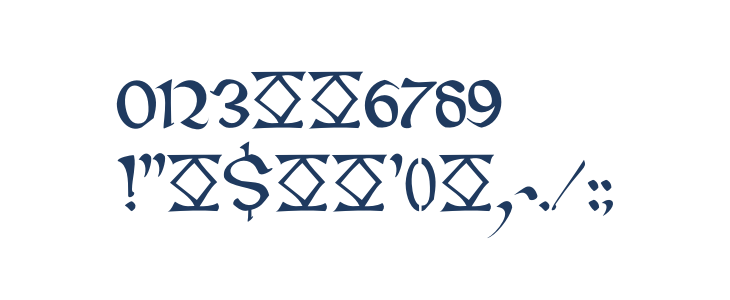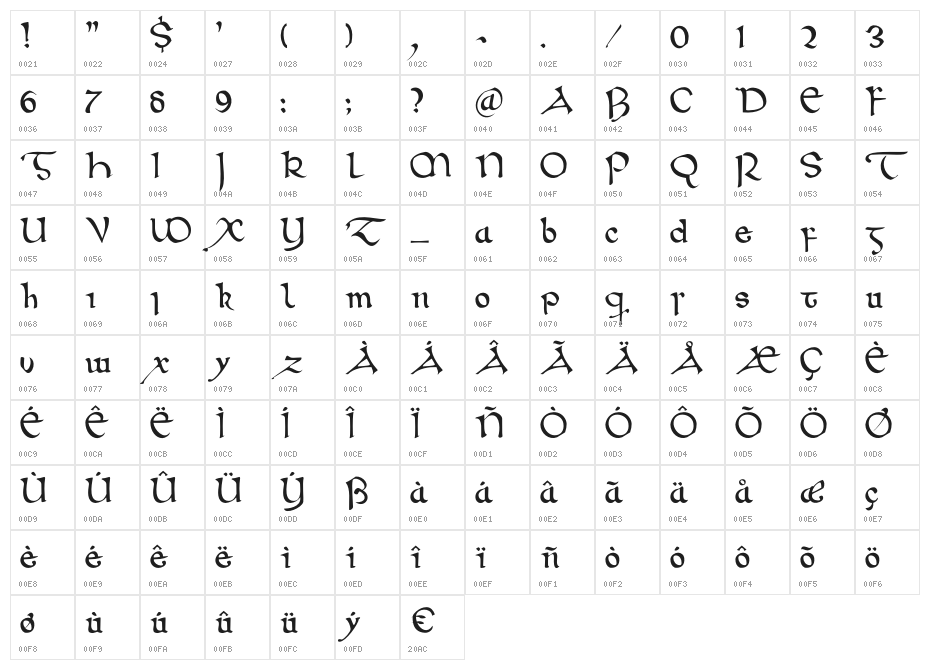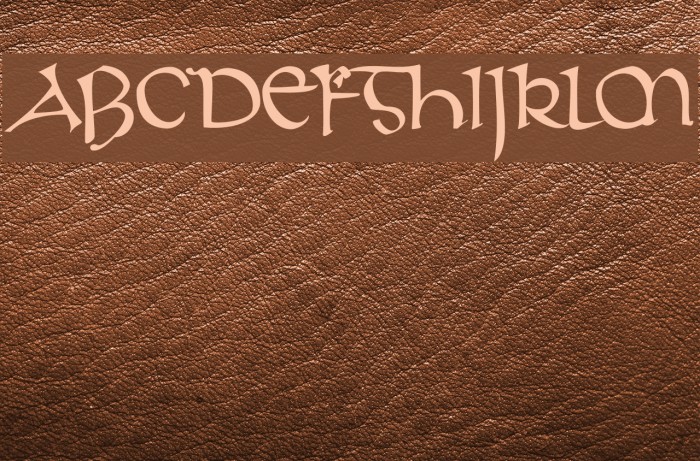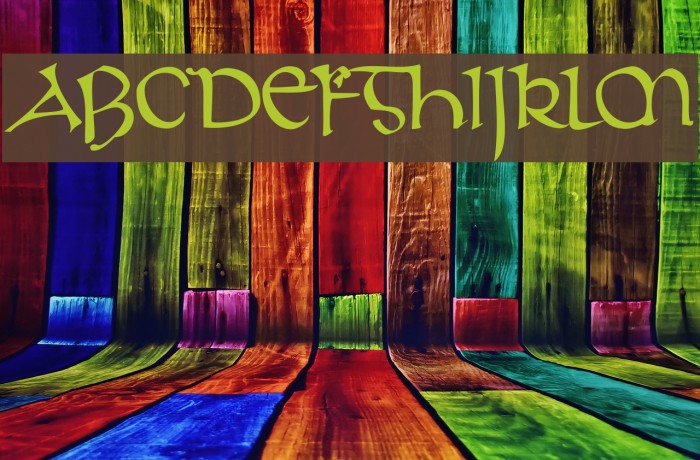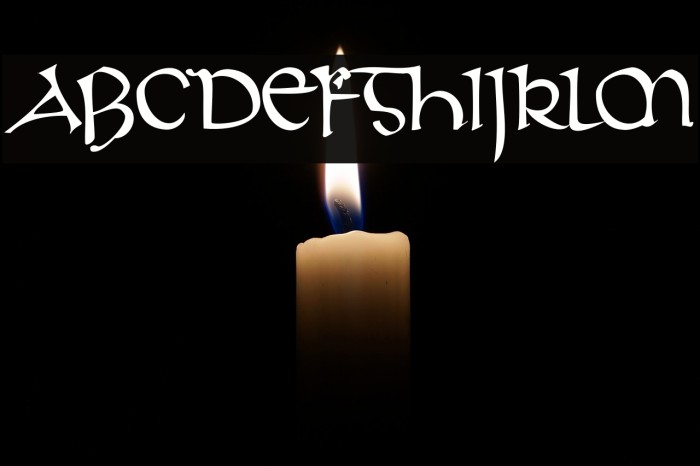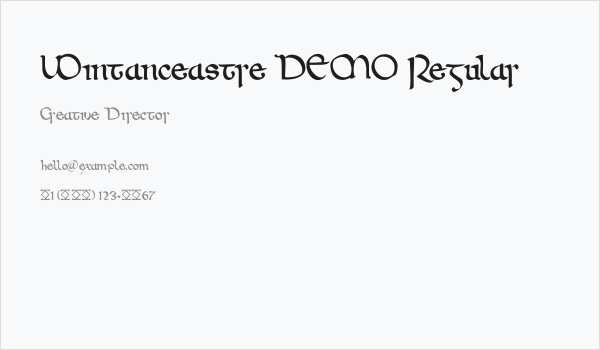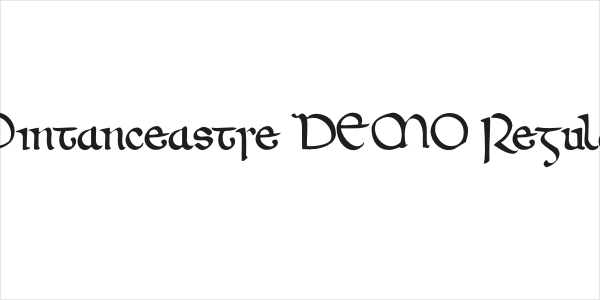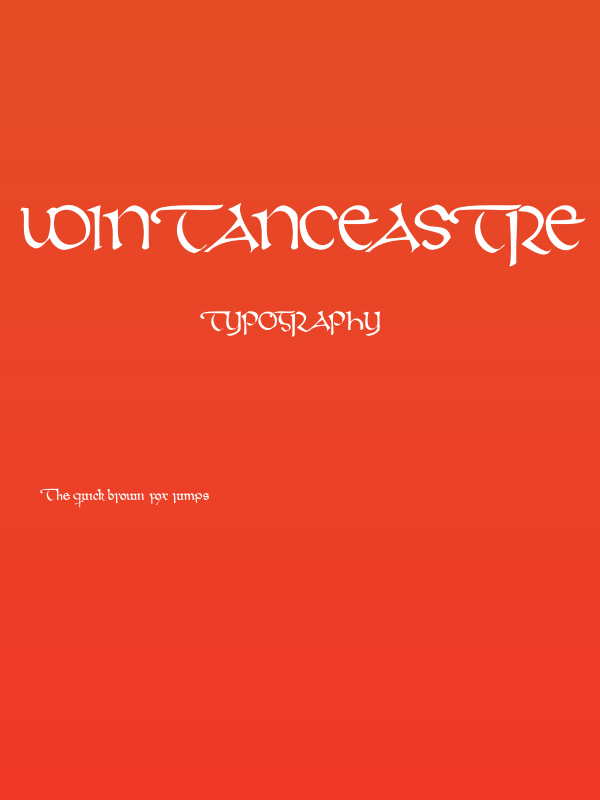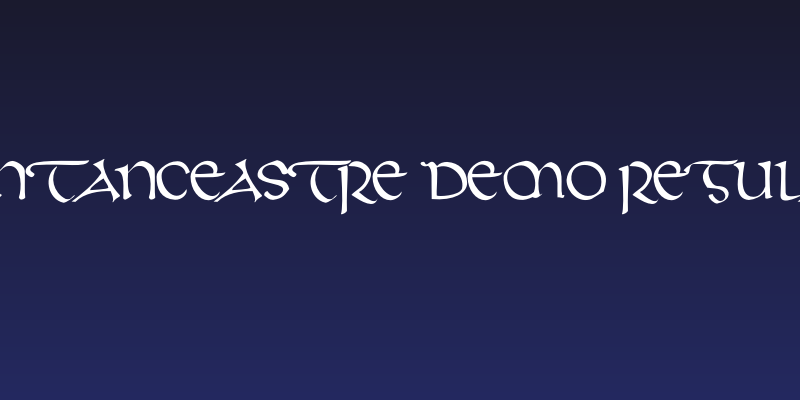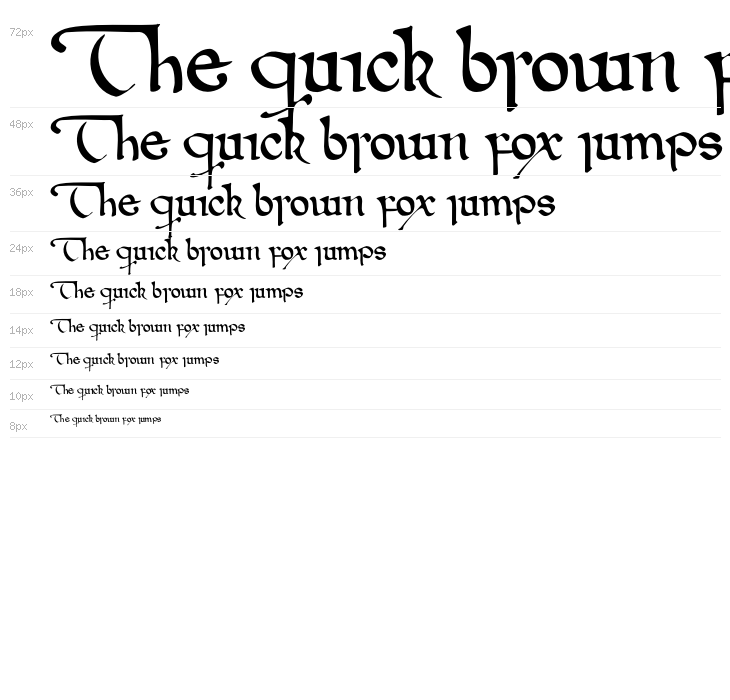
Wintanceastre DEMO Regular Font
Wintanceastre DEMO Regular Description
This font features a distinctive medieval-inspired design with intricate, angular strokes and a calligraphic flair. The uppercase letters exhibit a bold and dramatic presence, while the lowercase letters maintain a consistent style with elegant curves and sharp edges. The numerals are uniquely stylized, adding to the font's historical aesthetic. Special characters are crafted with the same attention to detail, enhancing the overall cohesive look. This font is ideal for projects that require a touch of antiquity and sophistication.
| Proposed Projects | Perfect for historical themed designs, fantasy book covers, medieval event invitations, and decorative signage. |